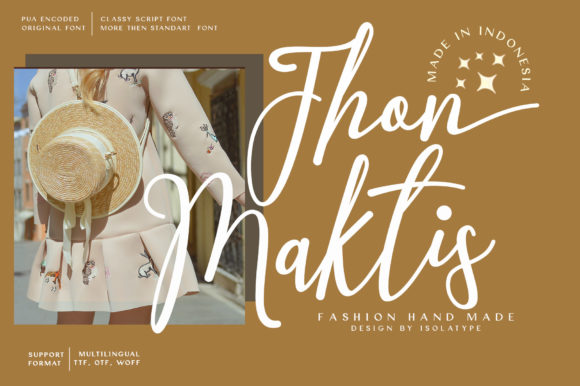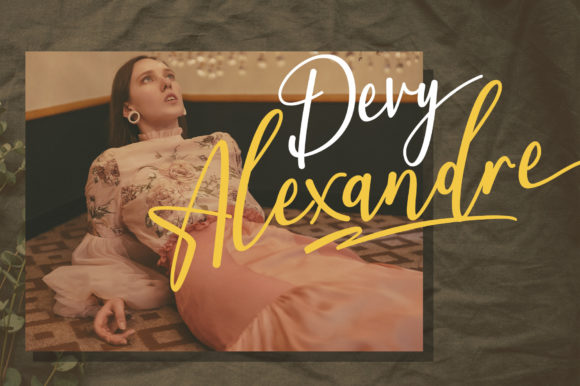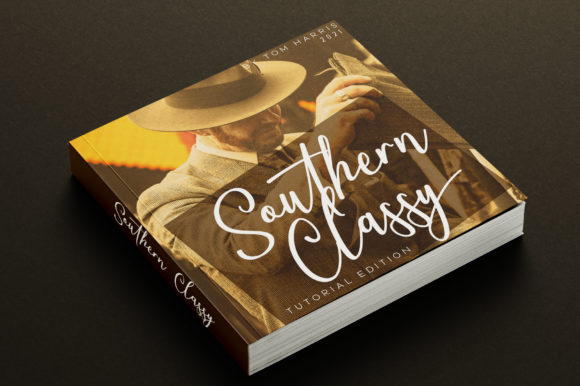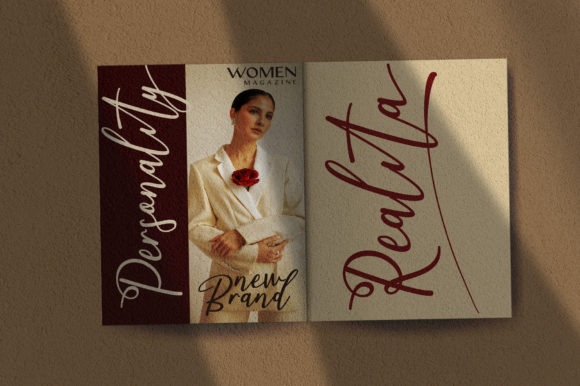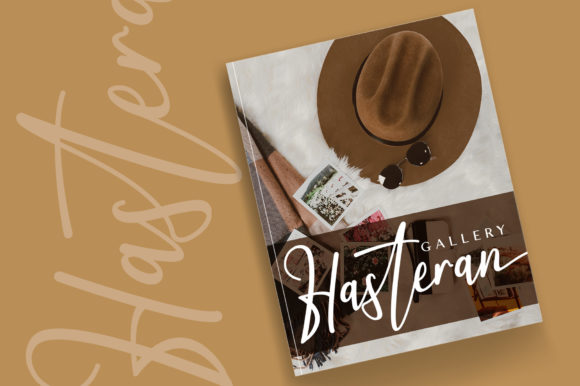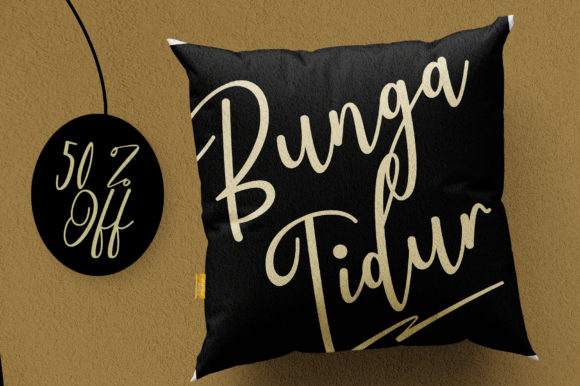
Interflow Font
About Interflow Font
Interflow is a lovely script font featuring charming, playful characters that seem to dance along the baseline. This font is PUA encoded which means you can access all of the glyphs and swashes with ease!